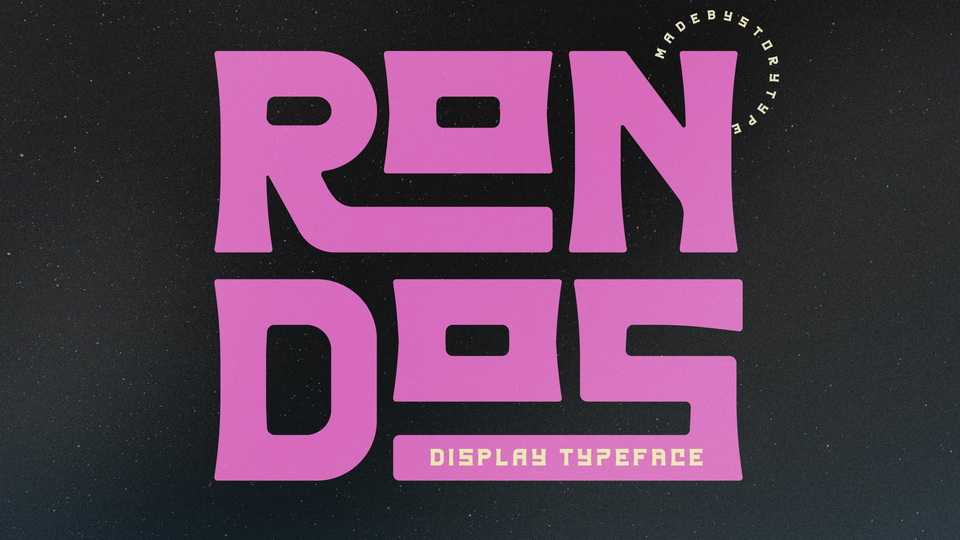
Download Rondos font, a bold and playful display typeface with unique personality. Rondos font is perfect for logos, posters, book or movie title design, fashion brand, magazine, clothes, lettering, quotes, and so much more.